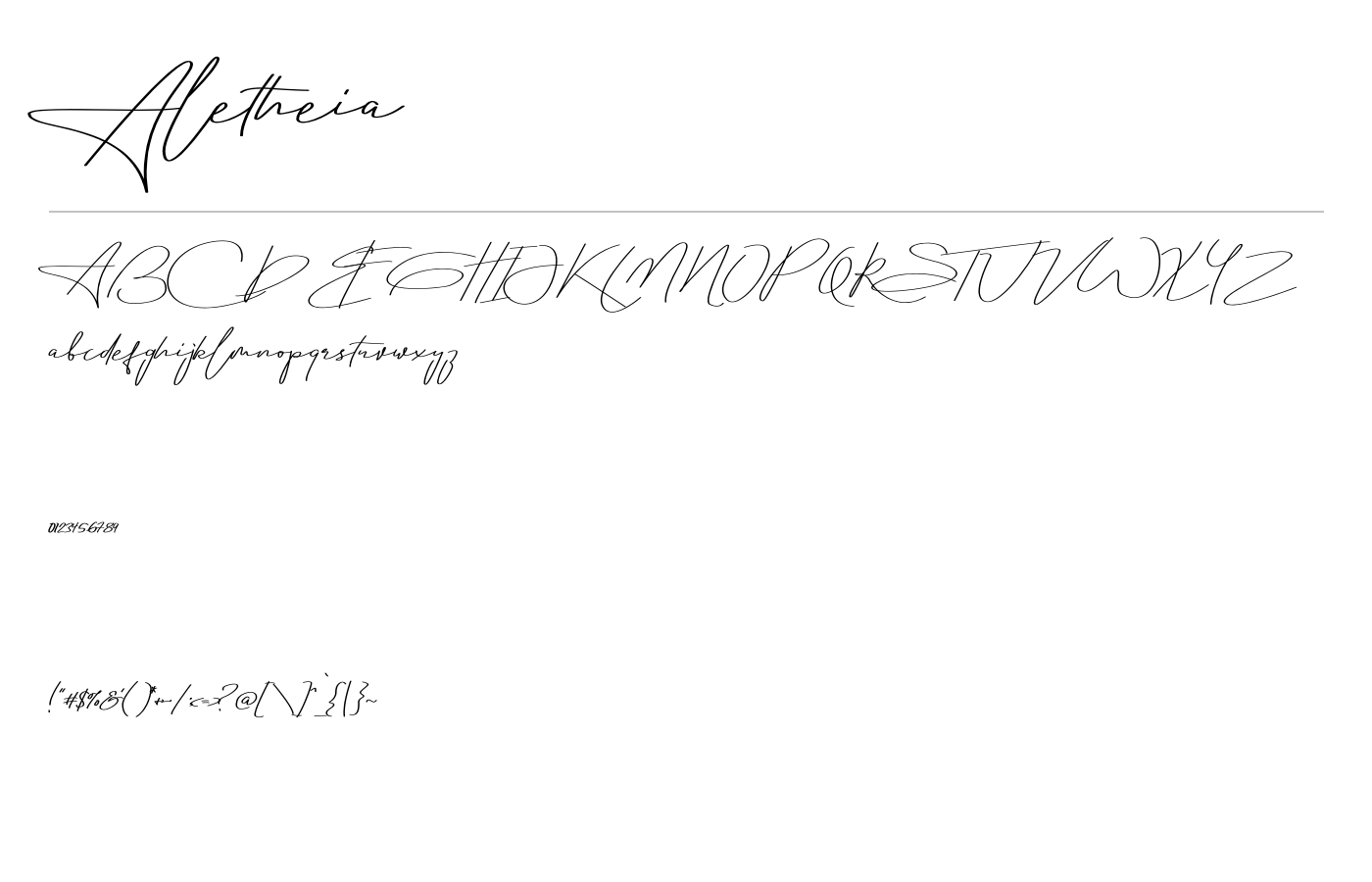
Aletheia is a delicate, handwritten script font characterized by its fine, flowing lines and elegant, modern calligraphy style. Its light weight and graceful, slightly elongated letterforms give it a sophisticated and airy feel, making it ideal for luxury branding, wedding invitations, and stylish editorial use. This font works beautifully for projects seeking a personal yet refined touch that conveys elegance and subtle charm.
Aletheia Font
About Aletheia Font
| Font family | Aletheia Font |
| Designer | Green Adventure Studio. 2019. |